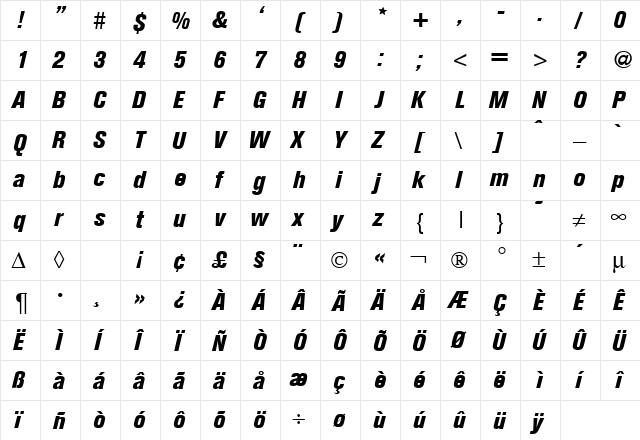
AkzentCondExtrabold RegularItalic Font Preview
Design Context for AkzentCondExtrabold Typeface
AkzentCondExtrabold is a composed and adaptable typeface that performs quietly and consistently across a wide range of design contexts. Its italic angle brings a sense of urgency and motion to the letterforms. Its bold stroke weight gives it real presence on the page. Its narrow stance lets it pack a punch even in space-constrained designs.
Pro Tip: Use AkzentCondExtrabold for emphasis, pull quotes, and subheadings where its slanted energy can add rhythm to the layout.